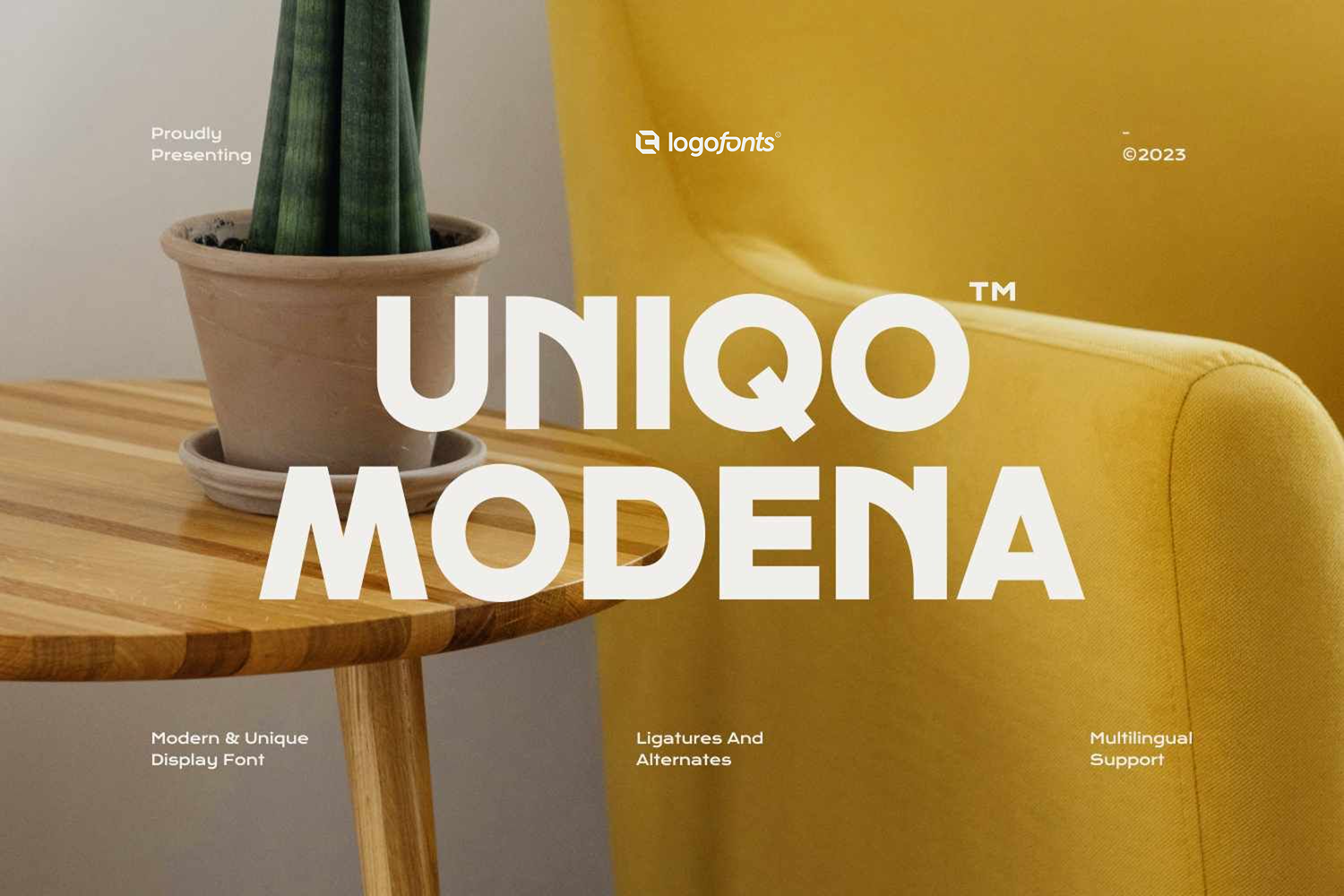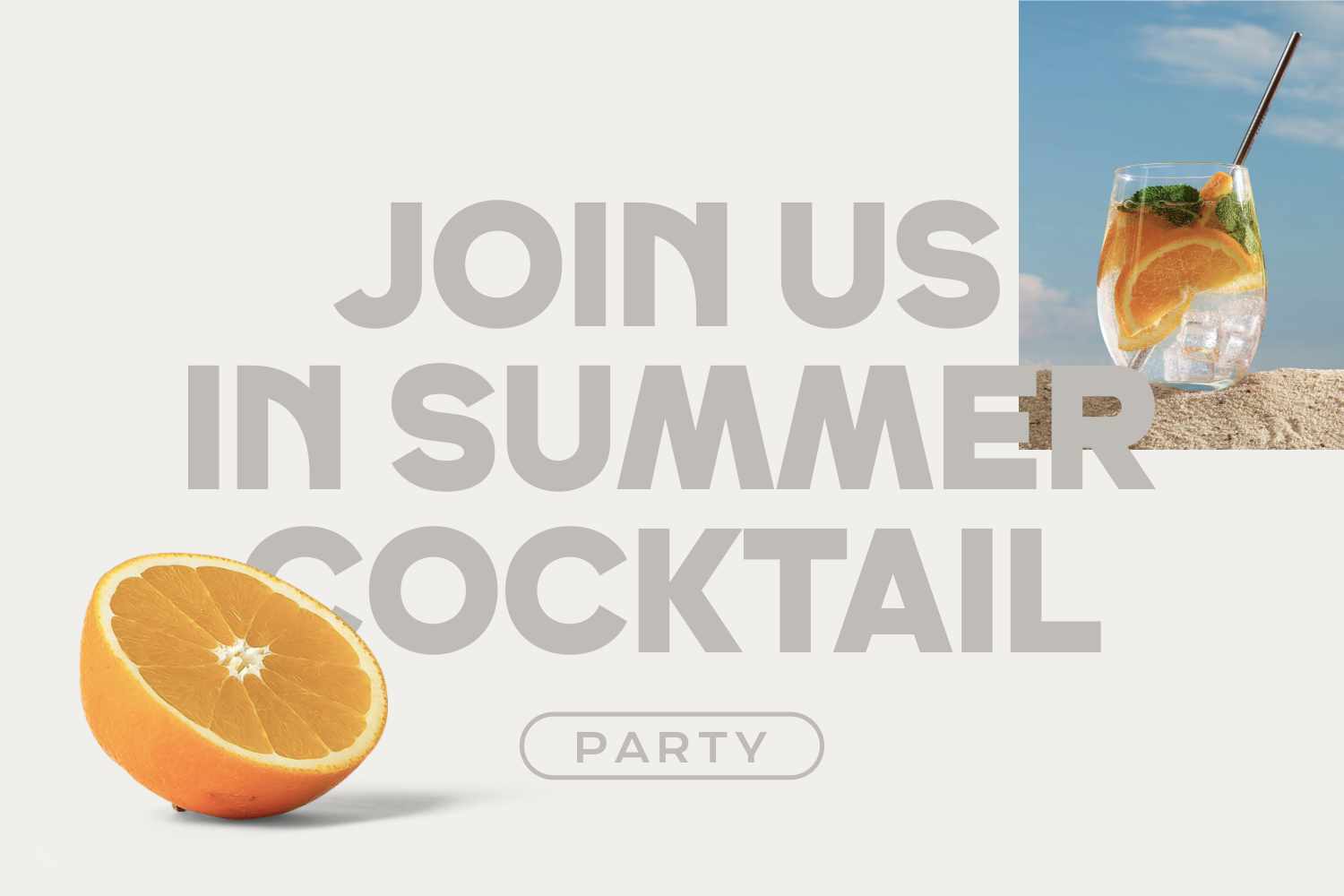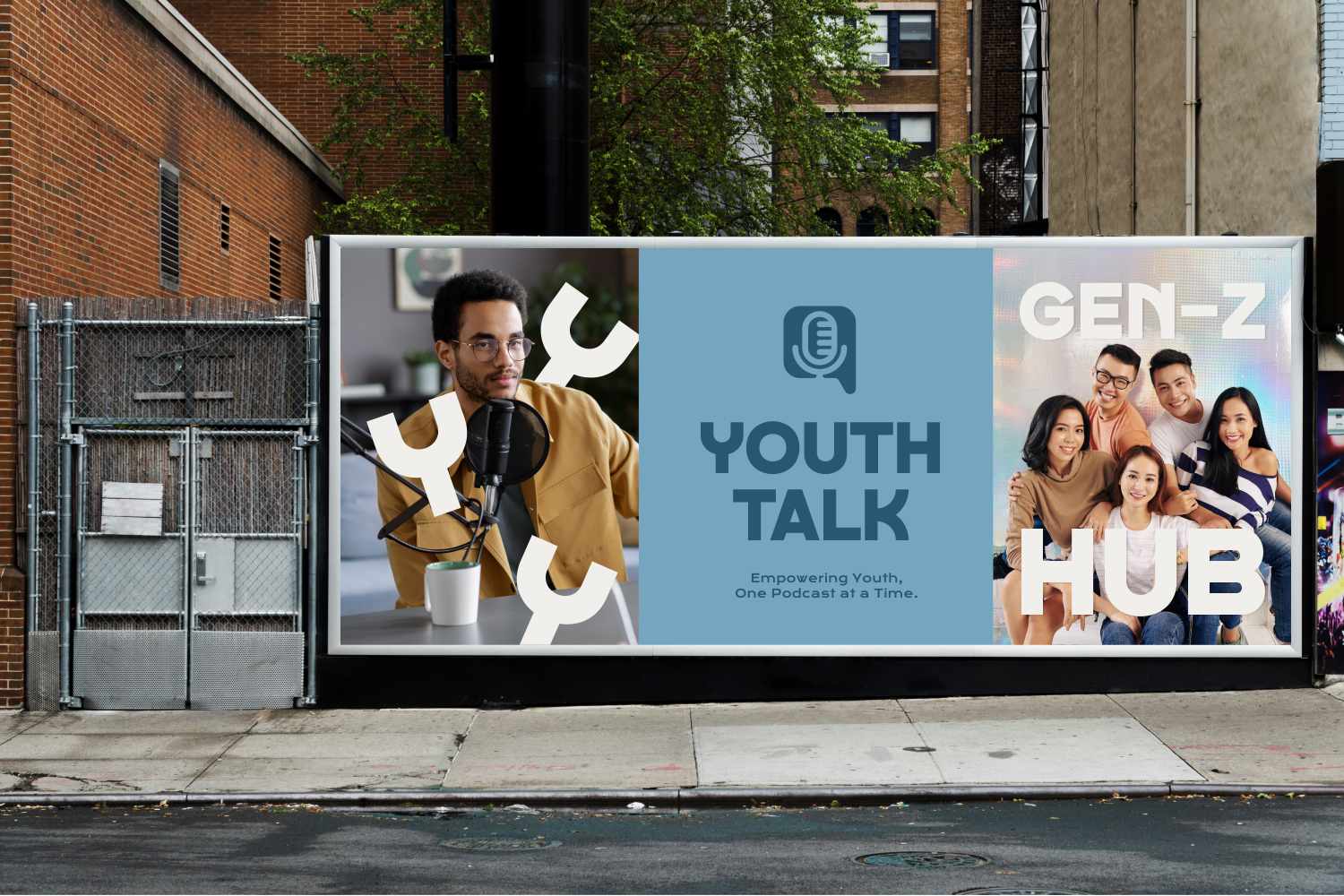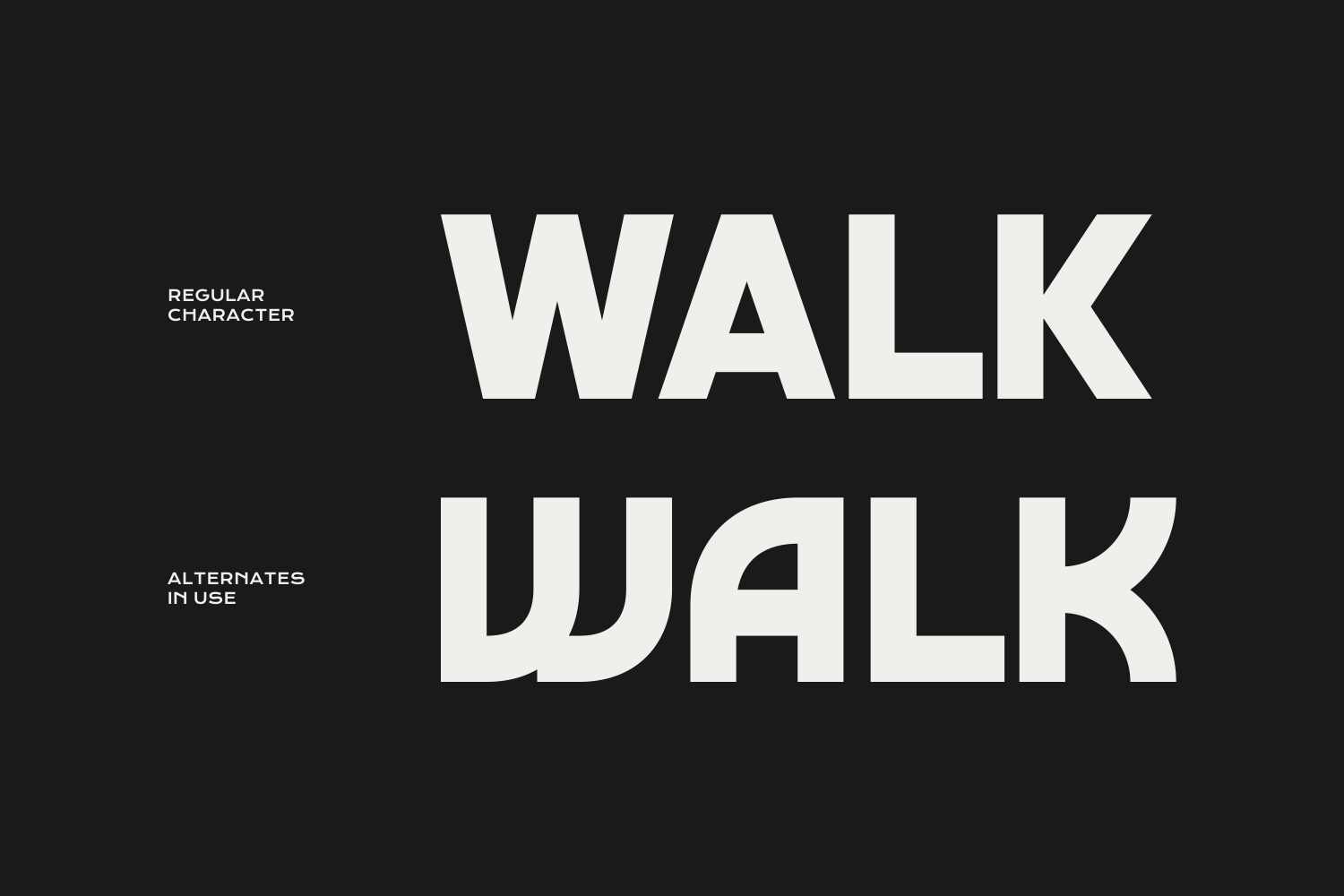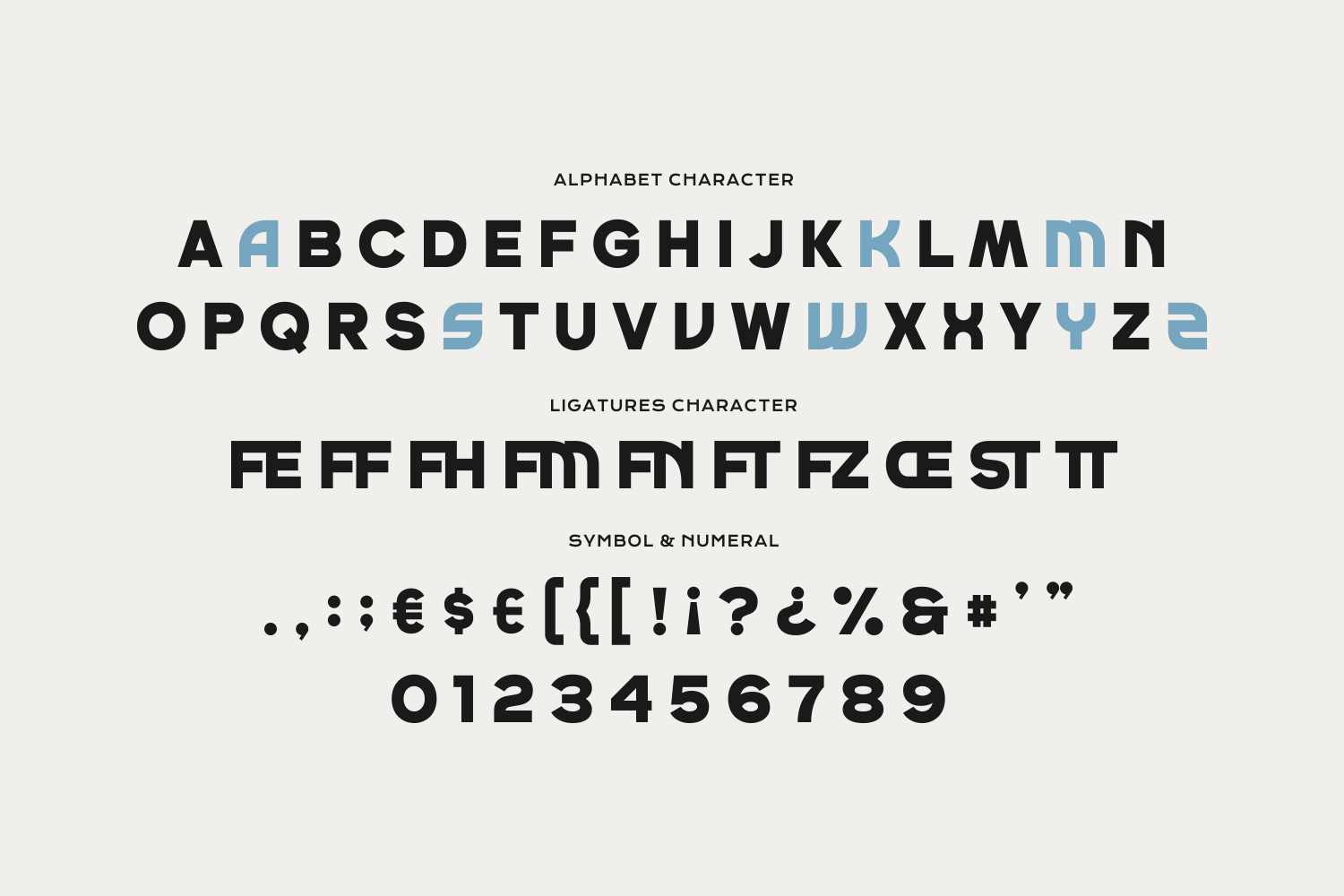
Uniqo Modena is a modern display typeface designed with boldness and personality in every curve. It features geometric forms, clean cuts, and alternate letterforms that add a playful yet sophisticated tone. The alternates and ligatures included bring extra flexibility and uniqueness, perfect for branding, posters, and editorial layouts.
This font stands out in contemporary design thanks to its balanced proportions and sharp details. Whether used in minimalist designs or expressive visual identities, Uniqo Modena brings a fresh voice that resonates with modern aesthetics and Gen-Z appeal.
Uniqo Modena